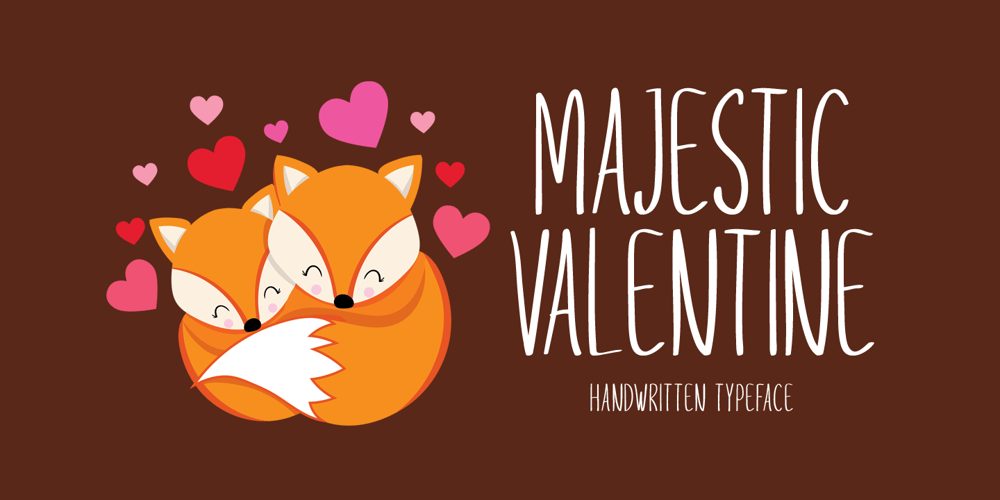
Majestic Valentine Font Family was designed by Md Shohail Bhuian and published by Seemly Fonts. Majestic Valentine contains 1 styles and family package options. Majestic Valentine is a tall and sweet font. Its natural and unique style makes it incredibly fitting to a large pool of designs. The only limit is your imagination!